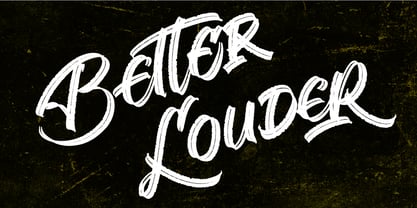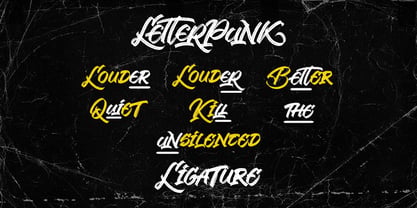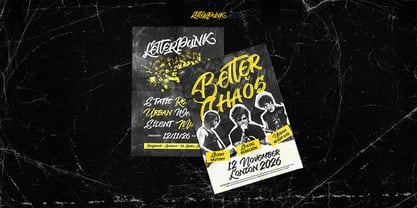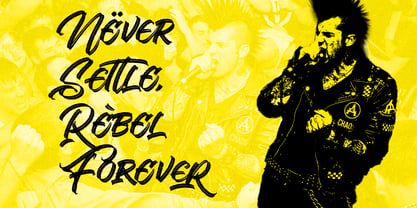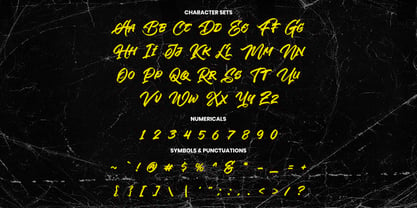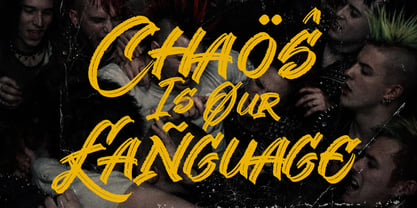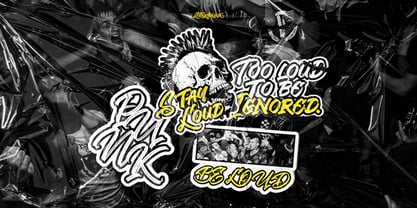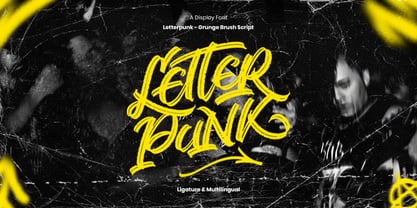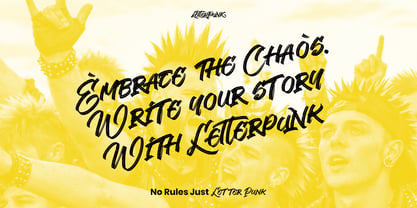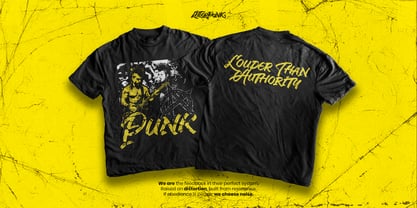
Letterpunk
The Letterpunk Font Family was designed by Virgiawan Listanto and published by Inviline. Letterpunk contains 1 styles. More about this family
Letterpunk is a bold grunge brush script display font that embodies raw energy and rebellious strokes. It delivers an authentic hand-painted texture, exuding a loud, aggressive, and unapologetically expressive vibe. This font includes uppercase and lowercase characters, numerals, symbols, dynamic ligatures, and multilingual support. It's ideal for punk posters, underground music branding, streetwear graphics, album covers, event flyers, protest visuals, and bold headlines perfect for any design that demands attitude, chaos, and uncompromising visual impact.